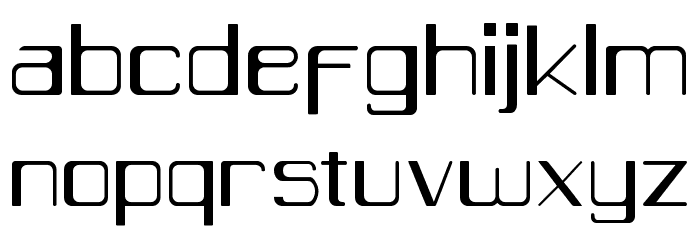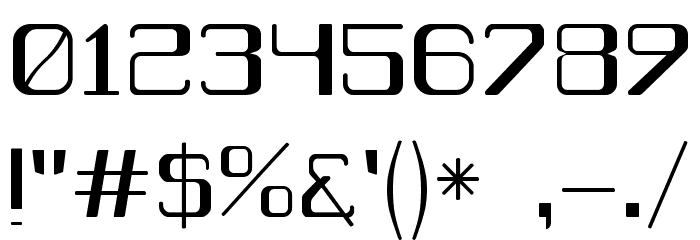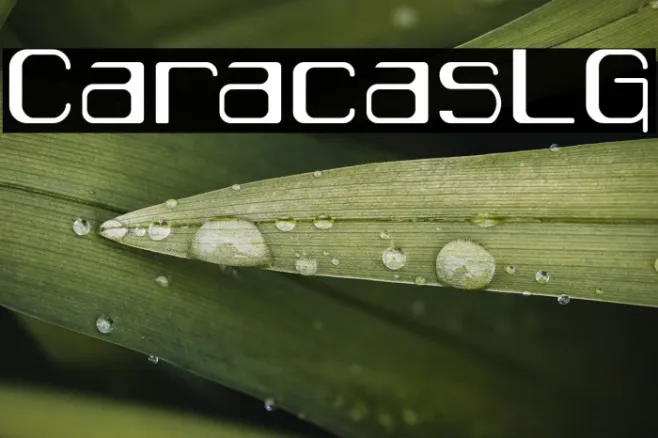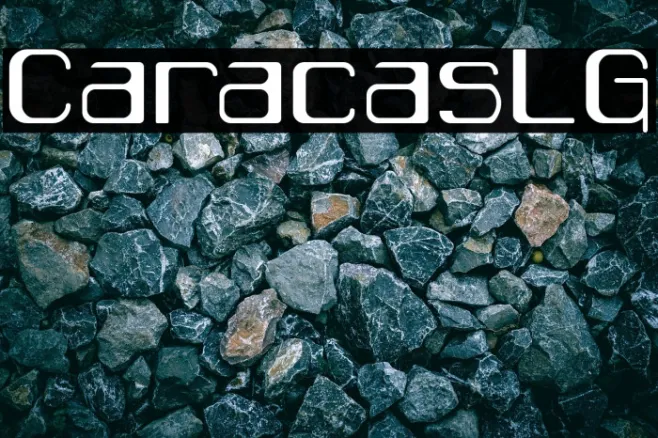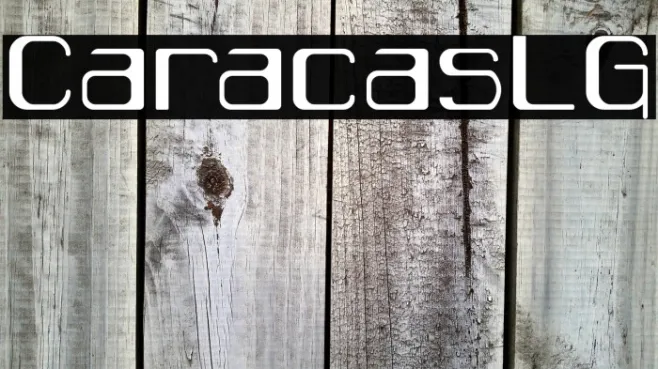
CaracasLG Font
This font features a modern and sleek design with a geometric structure. The characters are slightly condensed, giving it a compact appearance. The uppercase letters have a distinct angularity, while the lowercase letters maintain a consistent flow with rounded edges. The numerals are bold and clear, making them easily readable. Special characters are designed with a minimalist approach, complementing the overall style. The font's clean lines and balanced proportions make it versatile for various design applications.
A modern, geometric font with a sleek and compact design.
- Proposed Projects: Ideal for tech branding, modern web design, digital interfaces, and futuristic posters.
- Use Case: Headlines, Logos, Digital interfaces